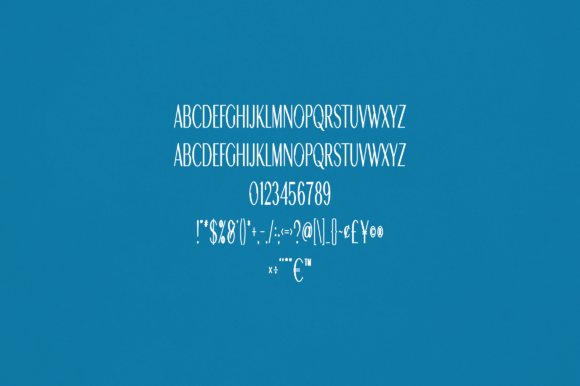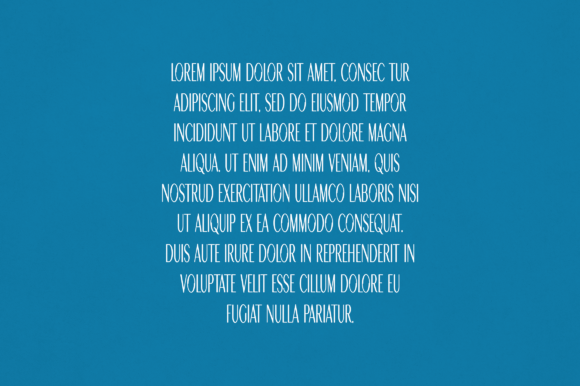
The Ultimate Guide to Floki Font: Elevate Your Typography Game
I’ll never forget the time I was working on a branding project for a trendy home decor client, and I was stuck on finding the perfect font. The client wanted something elegant, versatile, and unique, but I was coming up blank. That’s when I stumbled upon Floki Font, and it was love at first sight! 💫 In this article, I’ll share my experience with Floki Font, its features, and how to make the most of it in your designs.
An Honest Review of Floki Font
So, what makes Floki Font special? Here are the things I love:
- ✨ Elegant and sophisticated design that’s perfect for high-end branding projects
- ✅ Highly versatile and works well in various design contexts, from logos to headlines and body text
- 🔥 Unique character set that adds a touch of personality to any design
- 💻 Excellent legibility, even at small font sizes
Of course, no font is perfect, and Floki Font has a few quirks:
- 🤔 Some users might find the font a bit too ornate for certain design projects
- ⚠️ Limited availability of certain OpenType features in certain software
The Backstory of Floki Font
Floki Font was designed by a team of typographers who wanted to create a font that would stand out in the world of typography. Inspired by traditional serif fonts, they added a touch of modernity and elegance to create a truly unique font. The result is a font that’s both sophisticated and approachable.
| Font Name | Floki Font |
| Author | vladfedotovv |
| What makes Floki Font unique? | Floki Font has a distinctive character set and elegant design that sets it apart from other fonts. |
| Is Floki Font suitable for body text? | Yes, Floki Font is legible and works well for body text, but it may be more suitable for headlines and titles. |